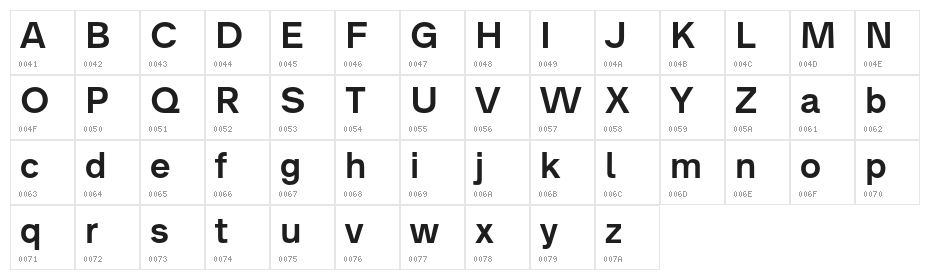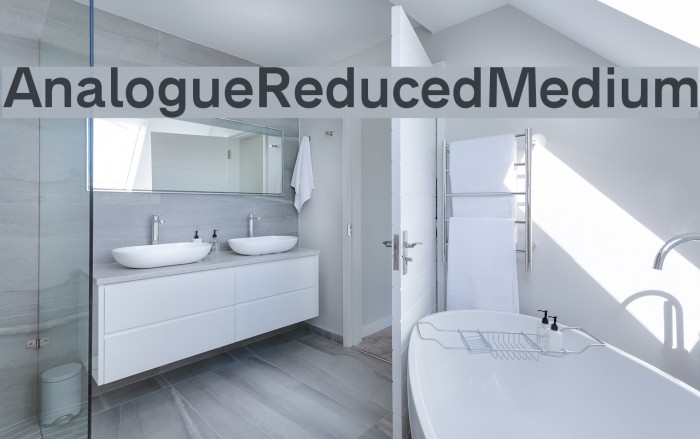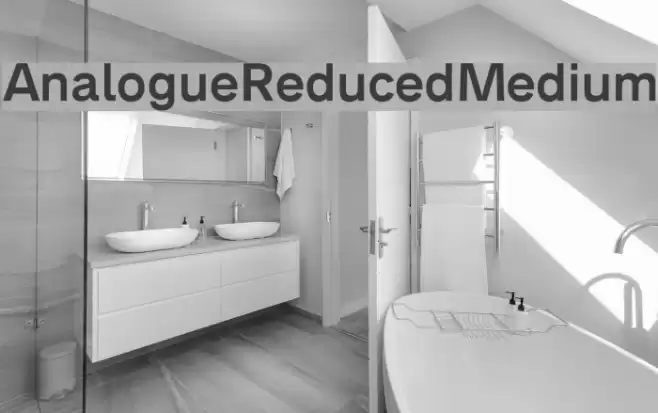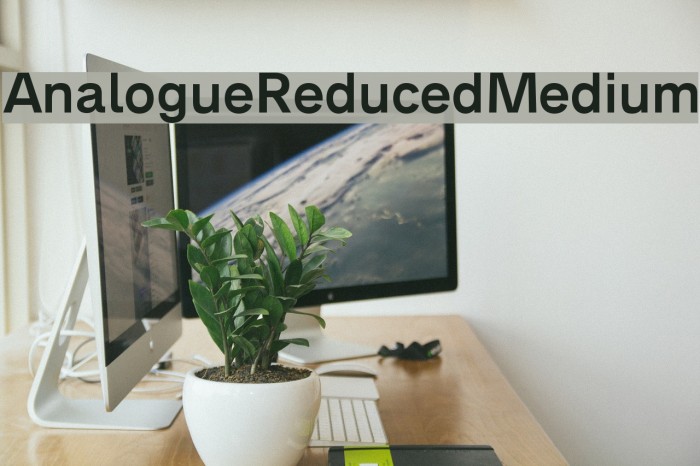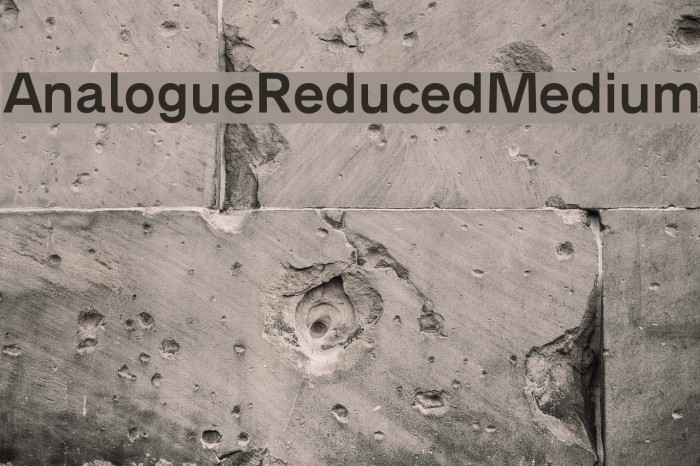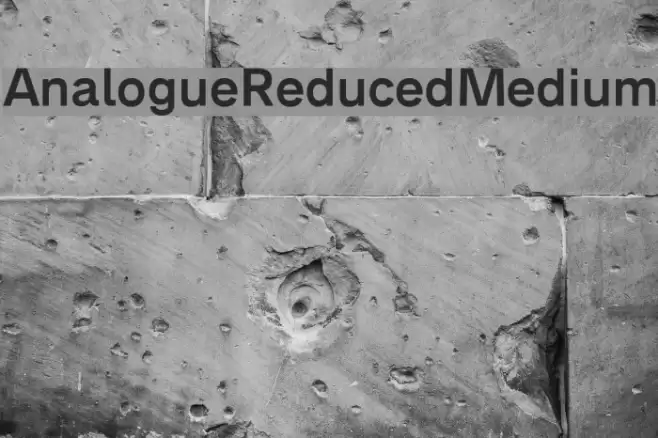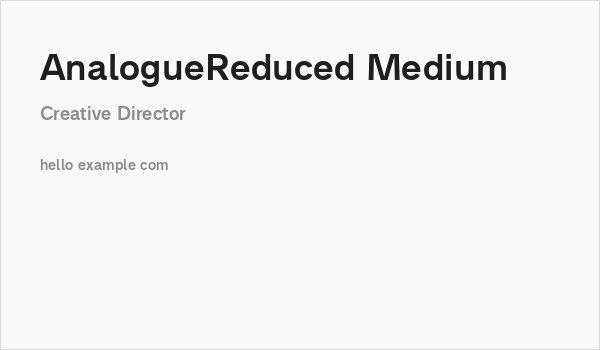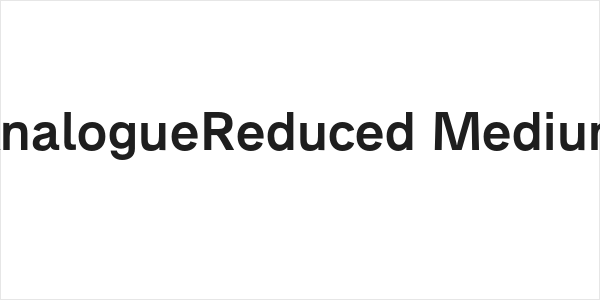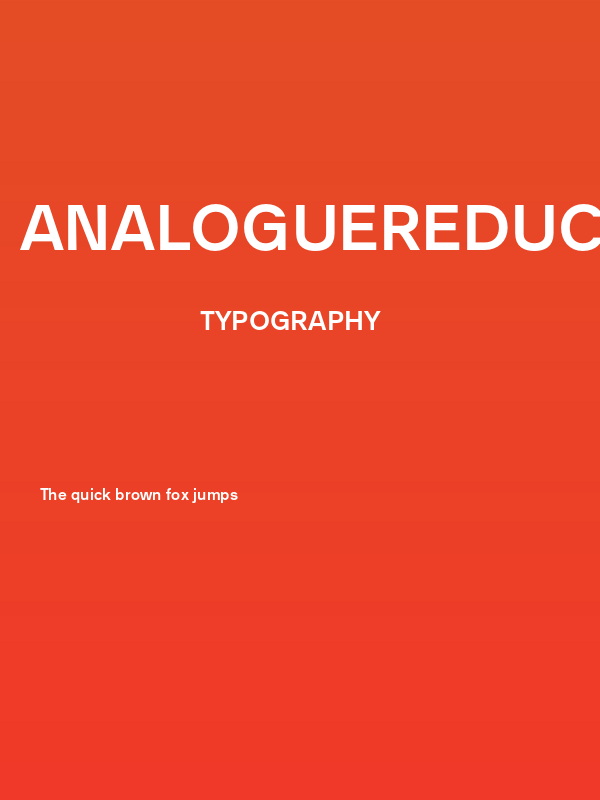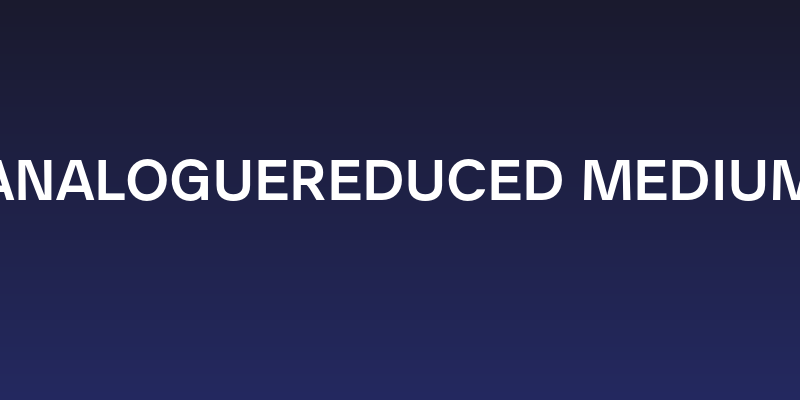
AnalogueReduced-Medium Font
AnalogueReduced-Medium Description
This font features a clean and modern sans-serif design with a straightforward and minimalist aesthetic. The characters are evenly weighted, providing a balanced and harmonious appearance. The uppercase letters are bold and assertive, while the lowercase letters maintain a consistent style that complements the overall design. The numerals are clear and legible, making them suitable for various applications. Special characters are well-integrated, ensuring versatility in usage. The font's simplicity and clarity make it ideal for both digital and print media, offering a professional and contemporary look.
| Proposed Projects | Ideal for branding, web design, advertising, and editorial projects where clarity and modernity are essential. |